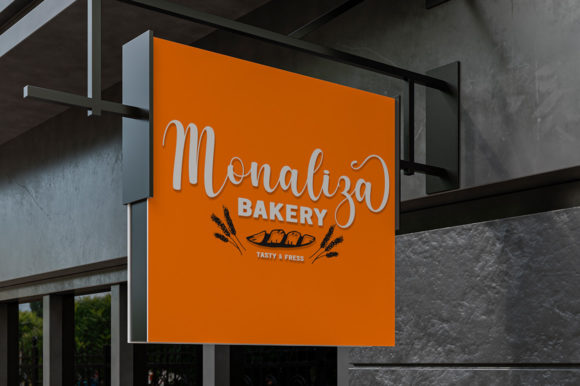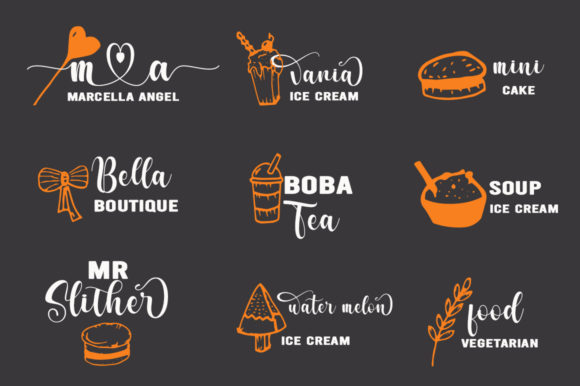
Slither Bakery Font
db-ku.com - Script & Handwritten -- Slither Bakery is a lovely and adaptable duo font (sans serif and script). This font is PUA encoded which means you can access all of the glyphs and swashes with ease!